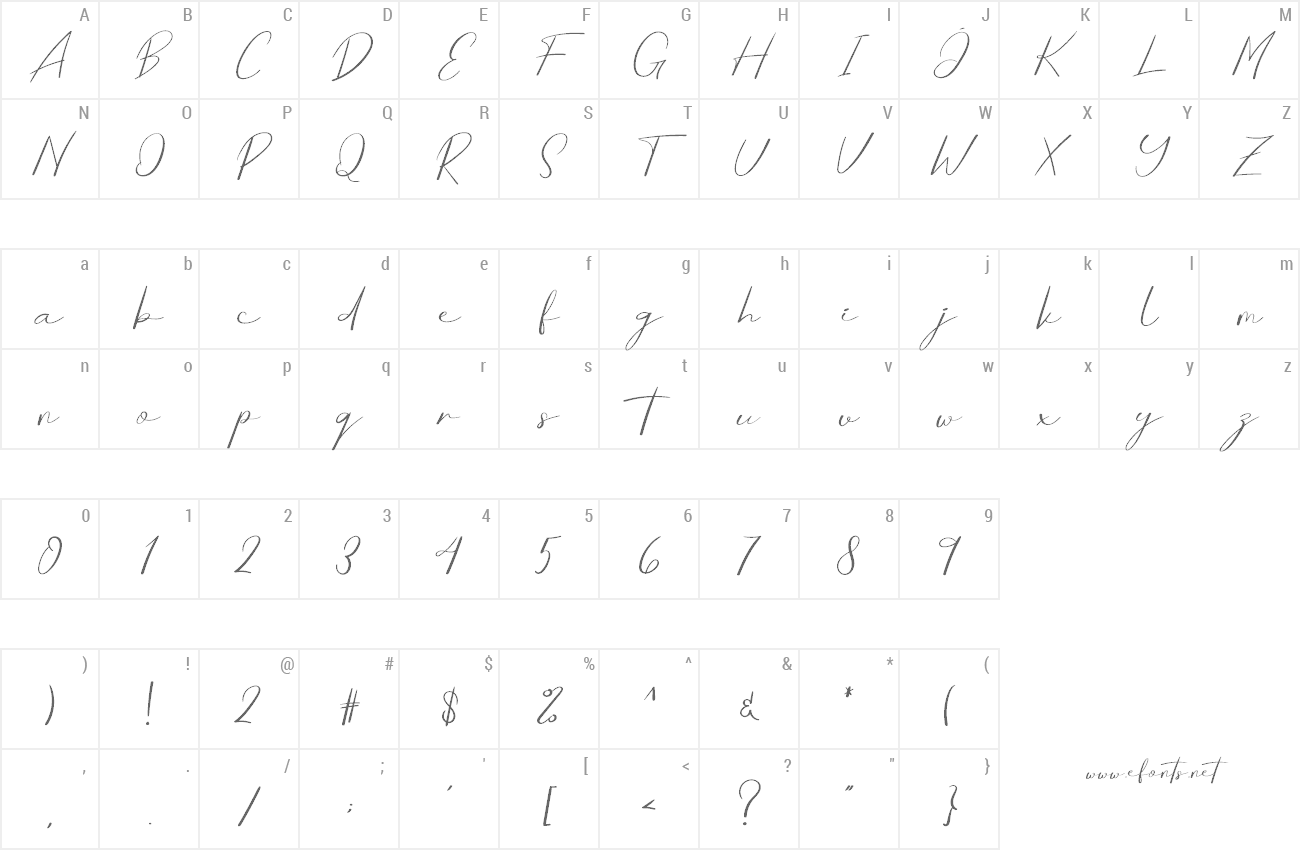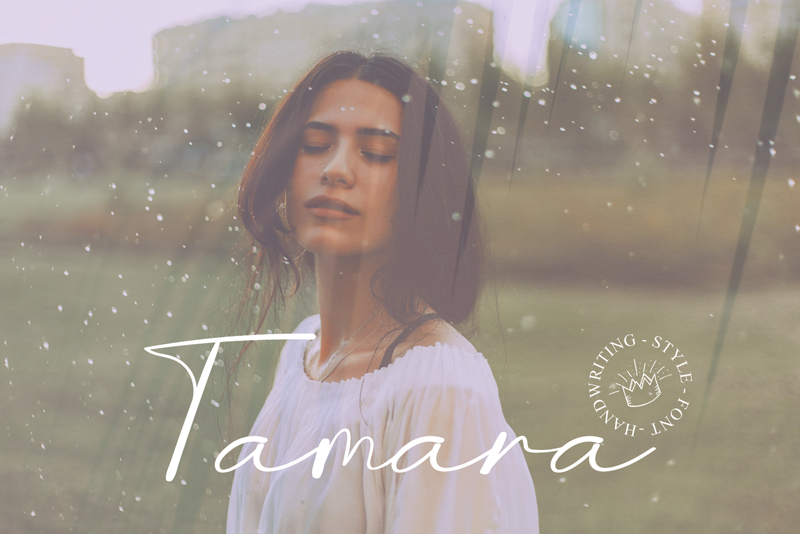
Preview and download Tamara Font. Created by Erik Luluk in Script Handwritten styles with Free for personal use license.
Tamara is a fashionable script font. It is neatly crafted and highly detailed. Whatever the topic, Tamara will be a wonderful asset to your font library, as it has the potential to enhance any creation. Attention : Tamara script font is prohibited to use this font for commercial purposes or for profit without the permission of the author/admin, without being known to use this font without permission, will be subject to sanctions 5x the specified price. This font is used only for demos (Demo license) If you want to use this font for commercial use please contact email: erikluluk0@gmail.com or click the link below: https://www.creativefabrica.com/product/tamara-2/ref/745146/ If you want to see more other fonts, please click:https://www.creativefabrica.com/designer/erik-studio/ref/745146/ Any donations are very appreciated. Paypal account for donation: https://paypal.me/eriksupriyant thanks. |